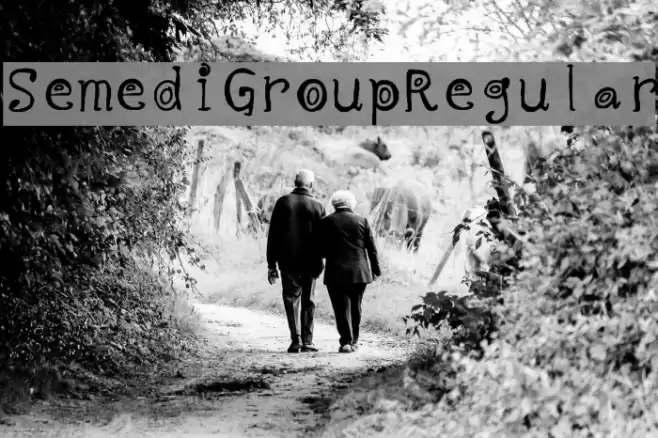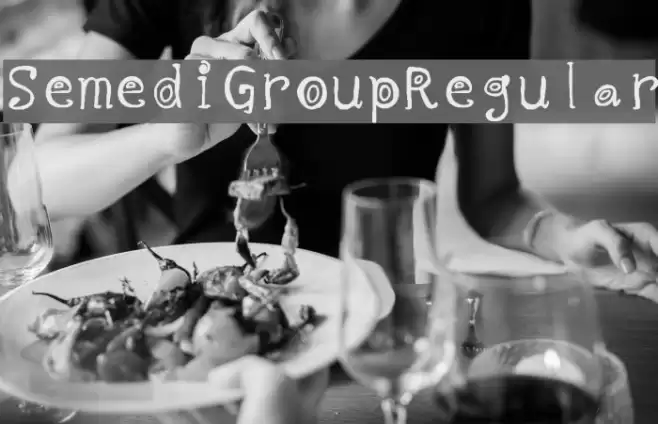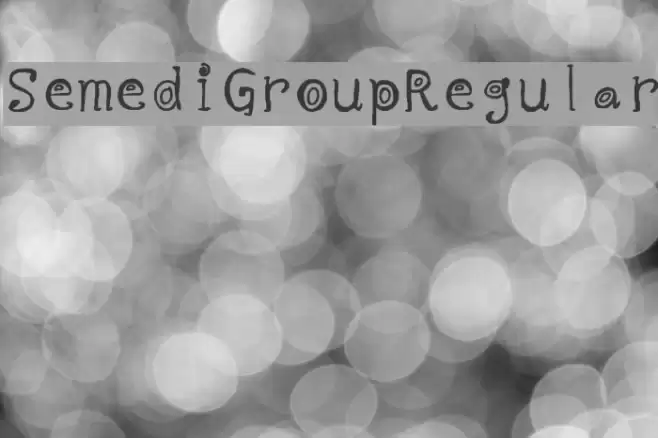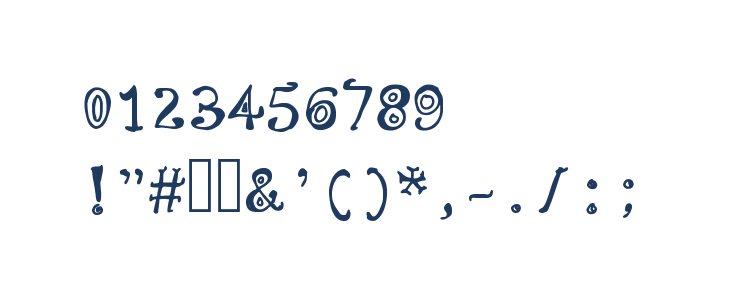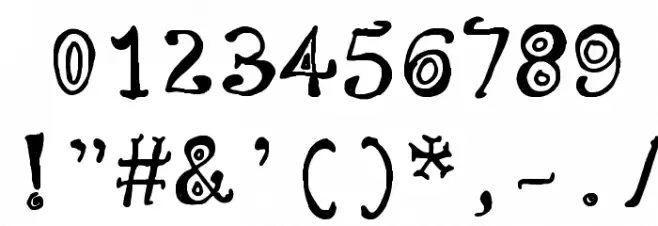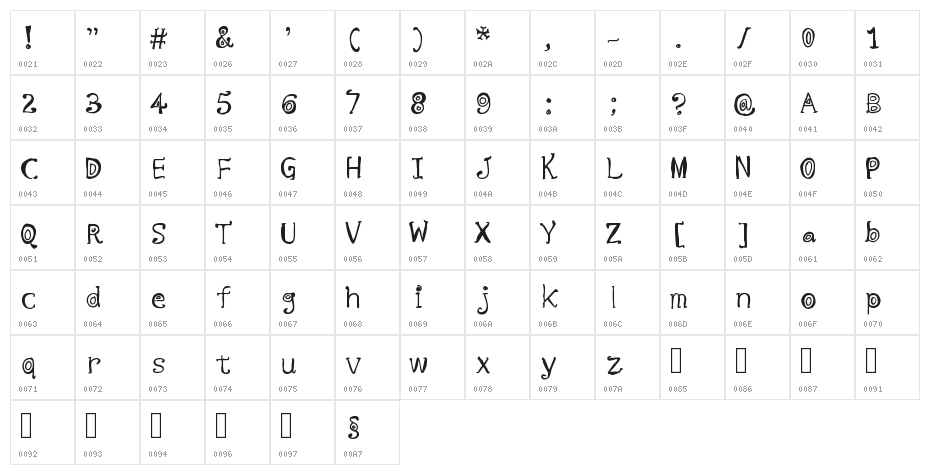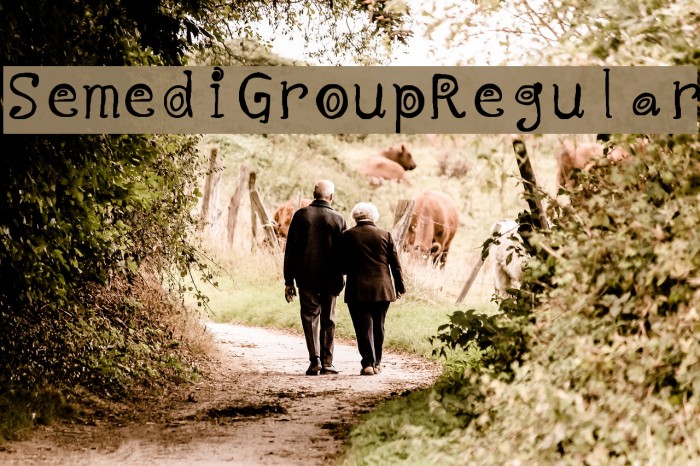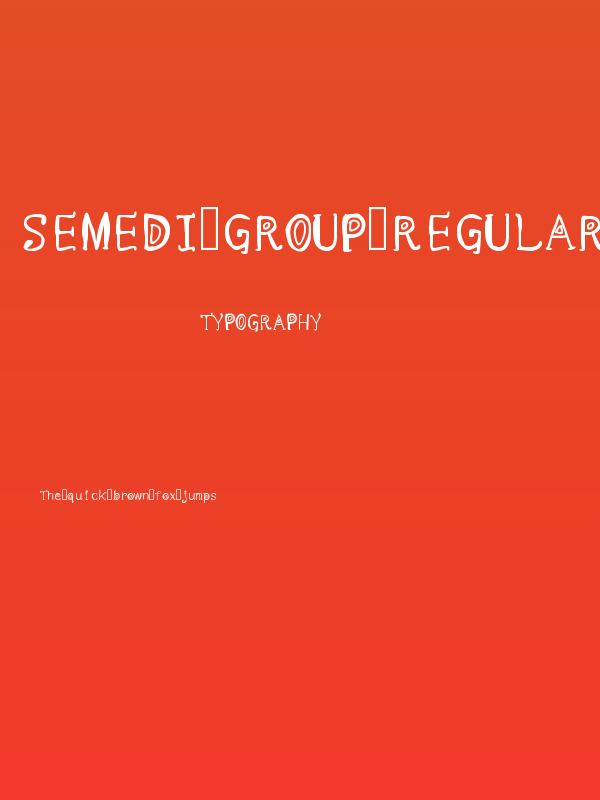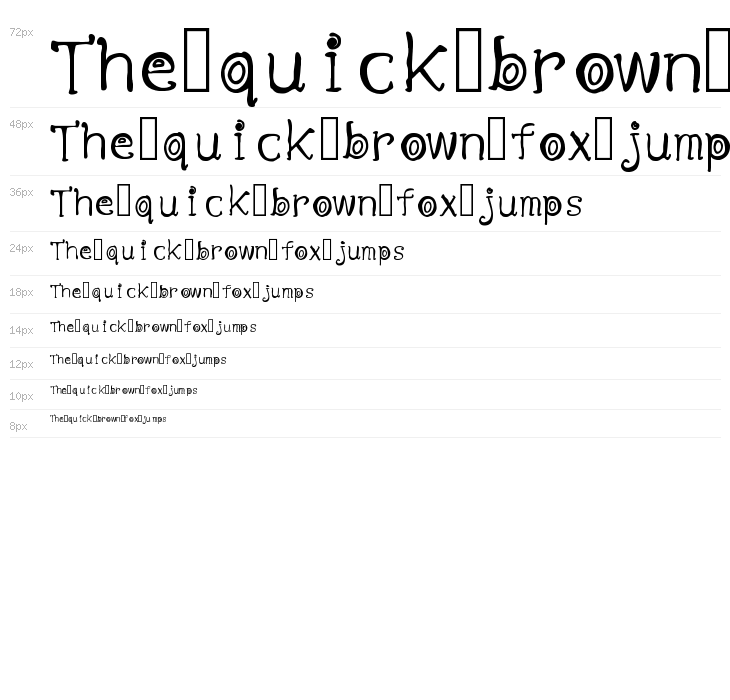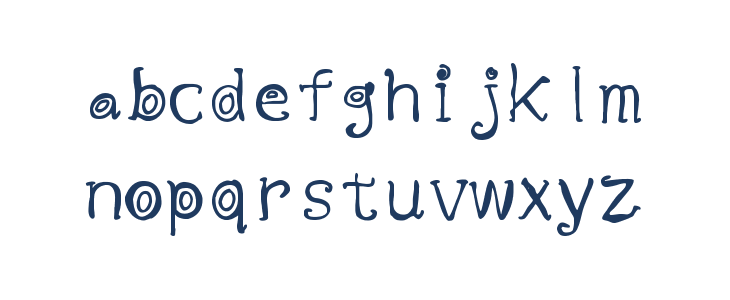
Semedi Group Regular Font
Semedi Group Regular Description
This font features a playful and whimsical design with irregular, hand-drawn strokes that give it a unique and artistic appearance. The characters are unevenly weighted, adding to the quirky and informal style. The uppercase letters are bold and distinct, while the lowercase letters maintain a consistent flow with slight variations in height and width. Numbers and special characters follow the same playful theme, making the font suitable for creative and informal projects.
A playful, hand-drawn font with irregular strokes and a whimsical style from Uncategorized fonts.
- Proposed Projects: Ideal for children's books, creative posters, greeting cards, and playful branding projects.
- Overall Style: Whimsical, Artistic
- Use Case: Headlines, Logos, Creative projects